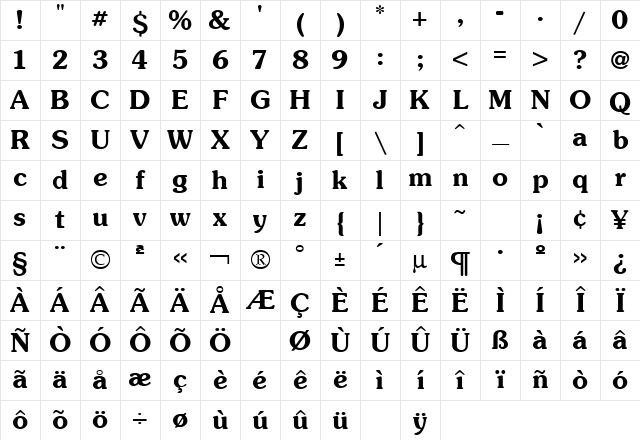
Souvenir Regular Free Font
Souvenir Regular
Souvenir Family
Souvenir Regular
Design Context for Souvenir
Souvenir is a composed and adaptable typeface that performs quietly and consistently across a wide range of design contexts.